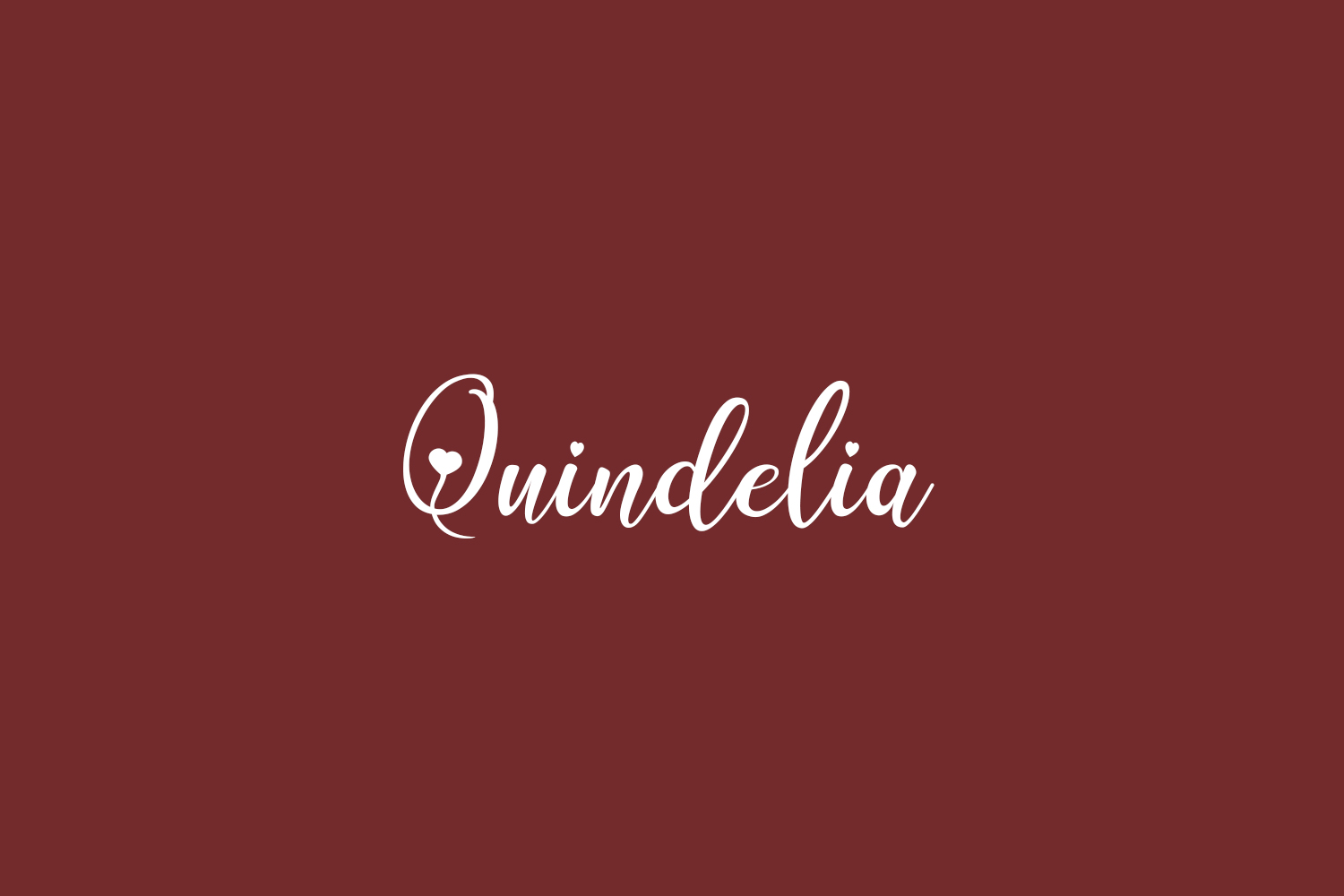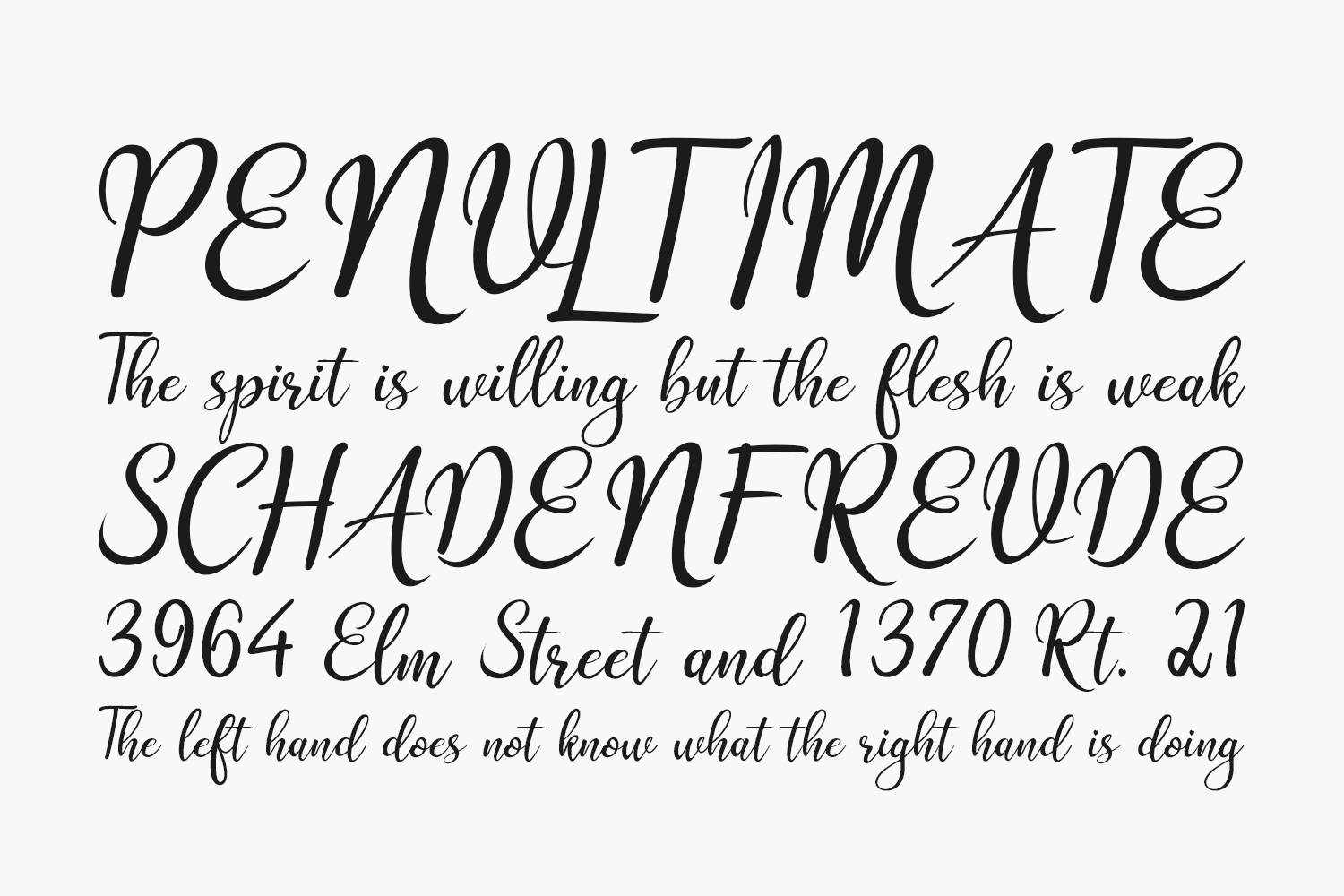
Quindelia Free Font is a beautiful font with lots of love and affection in it, a unique ligature, a smooth and elegant stroke, there are six alternatives in it. Quindelia Free Font is perfect for weddings, events, invitations, cards, quotes, displays, logos, blog sliders, special addresses, stamps, packaging, greeting cards, romance, etc. Please purchase the full version for commercial use.